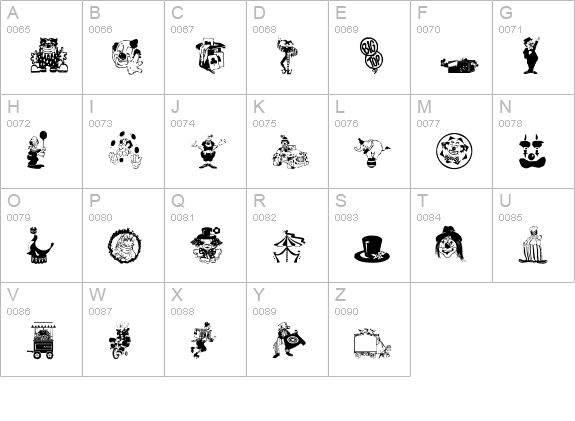
Bigtop Font Details
Bigtop font is a bold and eye-catching typeface that exudes a sense of fun and playfulness. Its rounded edges and quirky design make it perfect for adding a touch of whimsy to any project. Whether you're designing a poster, logo, or website, Bigtop font is sure to make a statement. The best part is, Bigtop font is completely free to download at FontsMarket.com. You can easily access this unique and charming font without having to spend a dime. Don't miss out on the opportunity to add Bigtop font to your collection and bring a sense of joy and creativity to your designs.